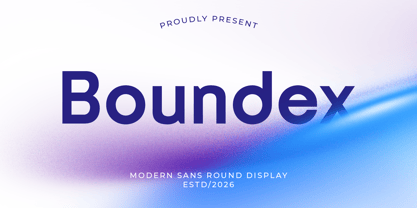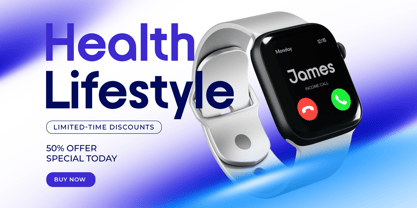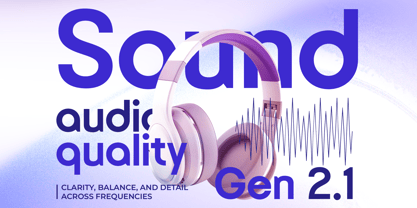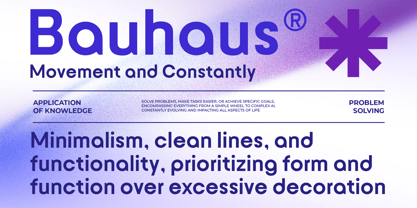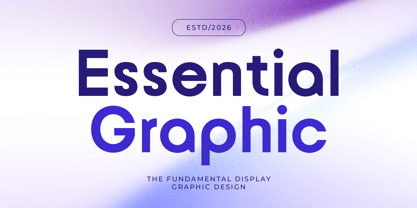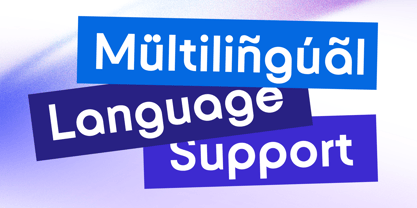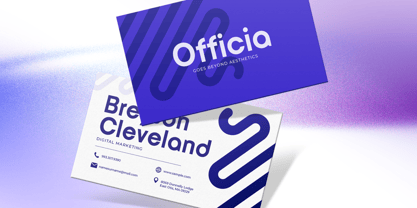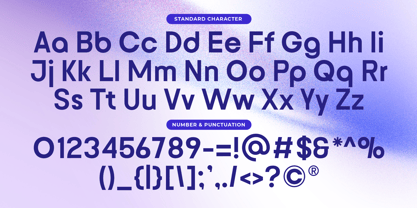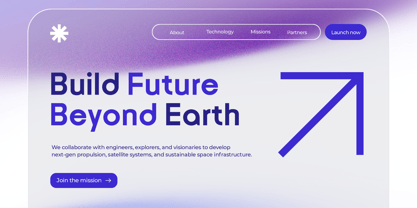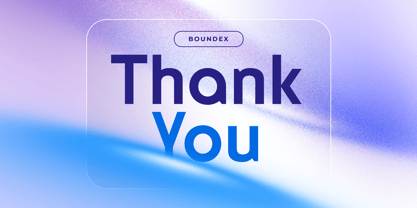
Boundex
by Sixtype Foundry
The Boundex Font Family and published by Sixtype Foundry. Boundex contains 1 styles. More about this family
Boundex is a modern display typeface designed to provide a strong personality and visual impact. Featuring confident letterforms and a contemporary structure, this font offers a bold yet refined aesthetic, perfect for various design projects. Ideal for logo design, branding identity, posters, advertising, packaging, and social media graphics, Boundex merges clarity, balance, and distinctive style in every character. Its robust shapes and modern proportions make it exceptionally suitable for impactful headlines and brand-focused typography, ensuring your designs stand out with sophistication and style.